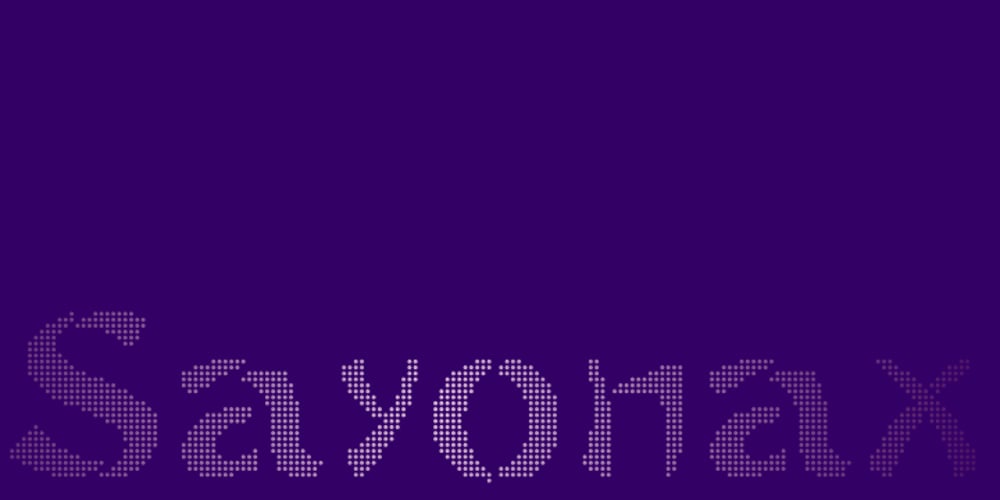
Sayonax Font Family was designed by published by Intellecta Design. Sayonax contains 1 styles and family package options. Sayonax is an oriental simulation typeface, in digital pixelated styles, by Intellecta Design.